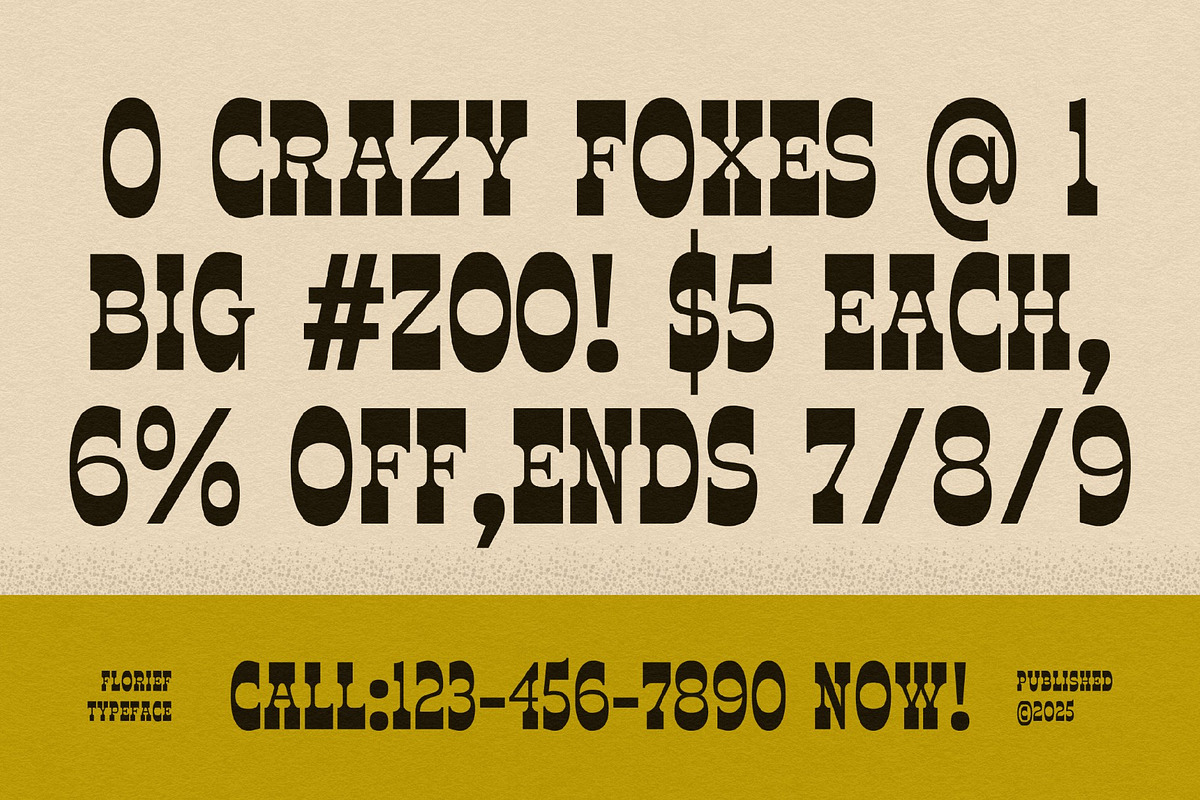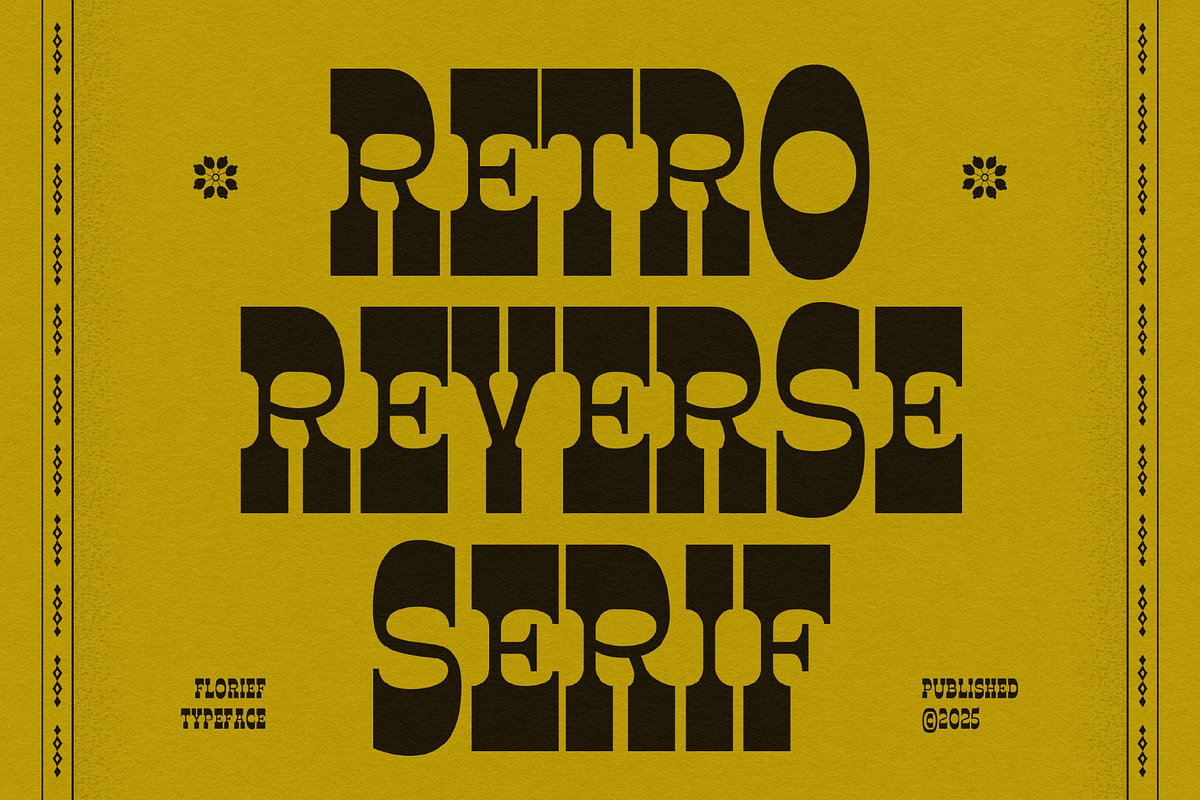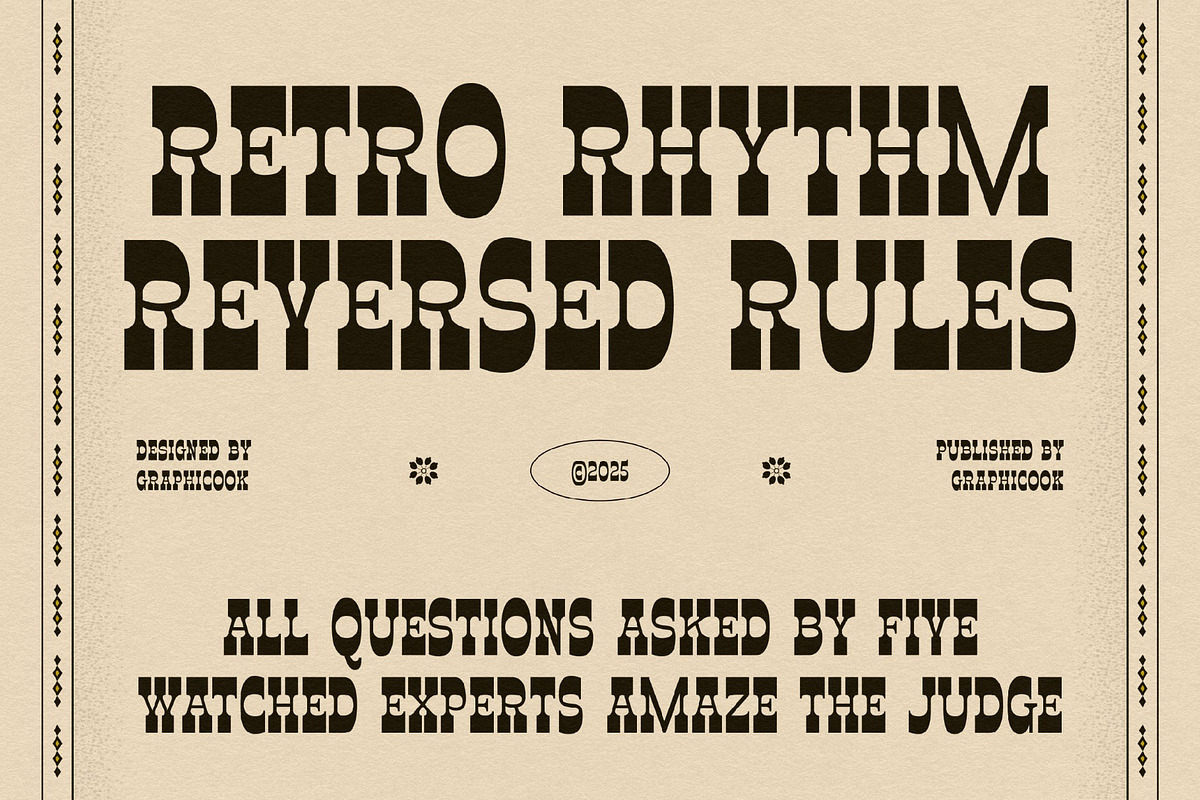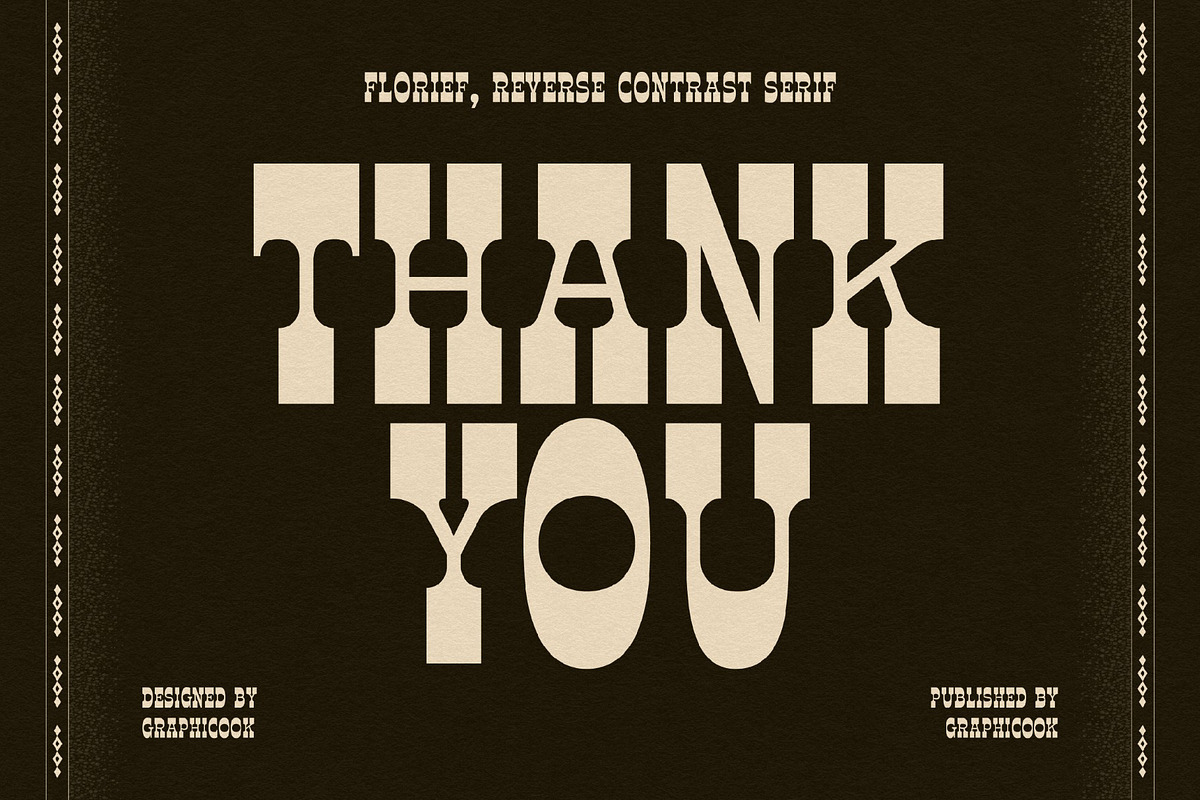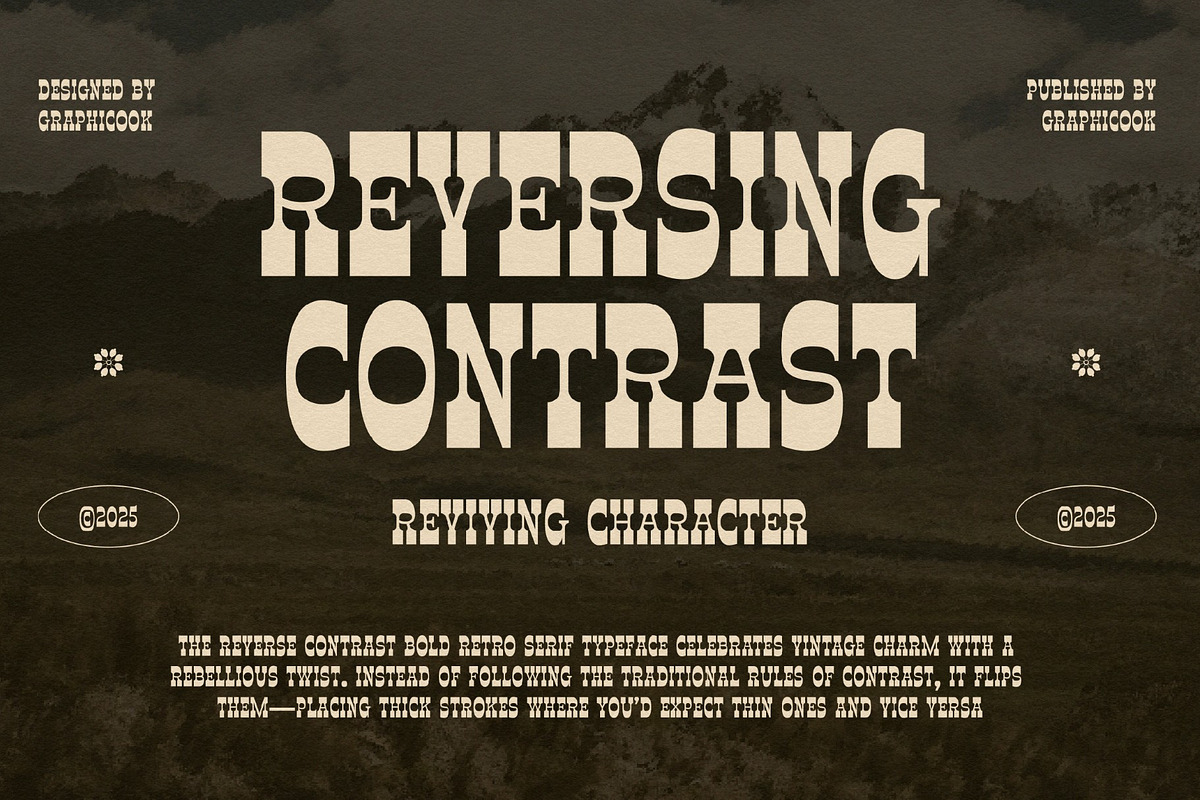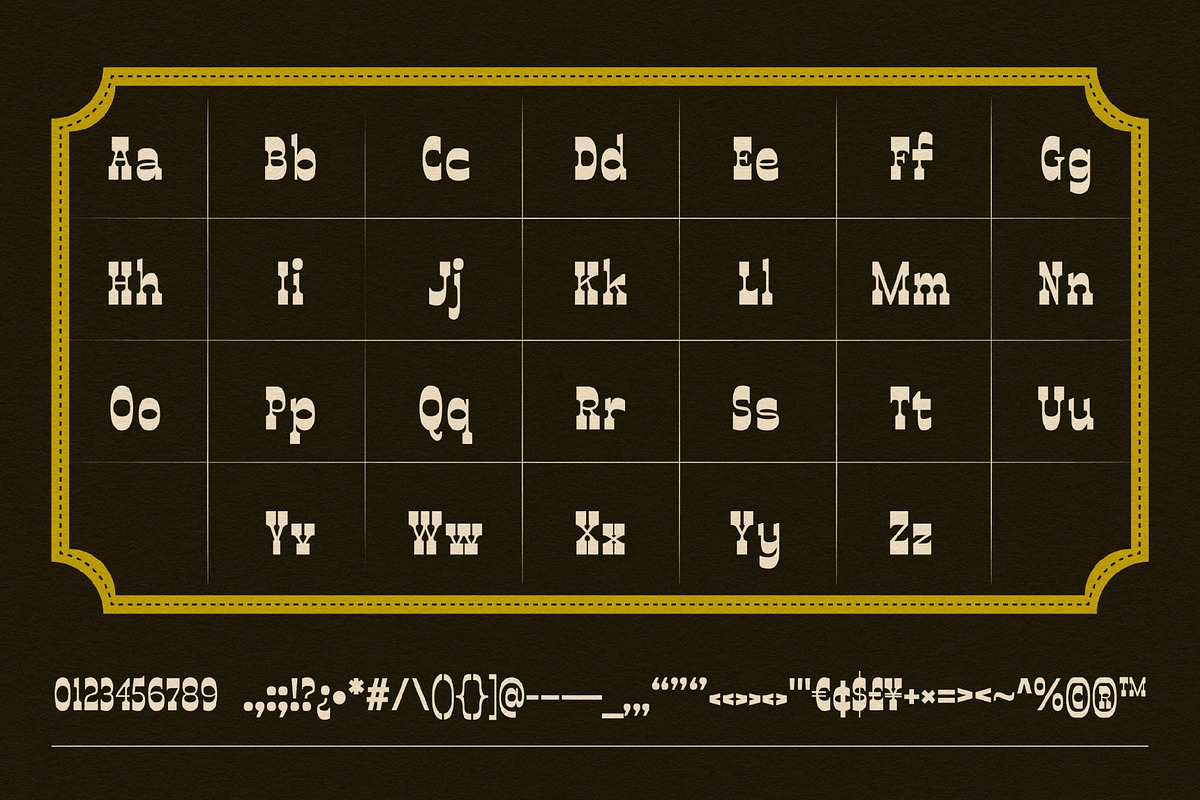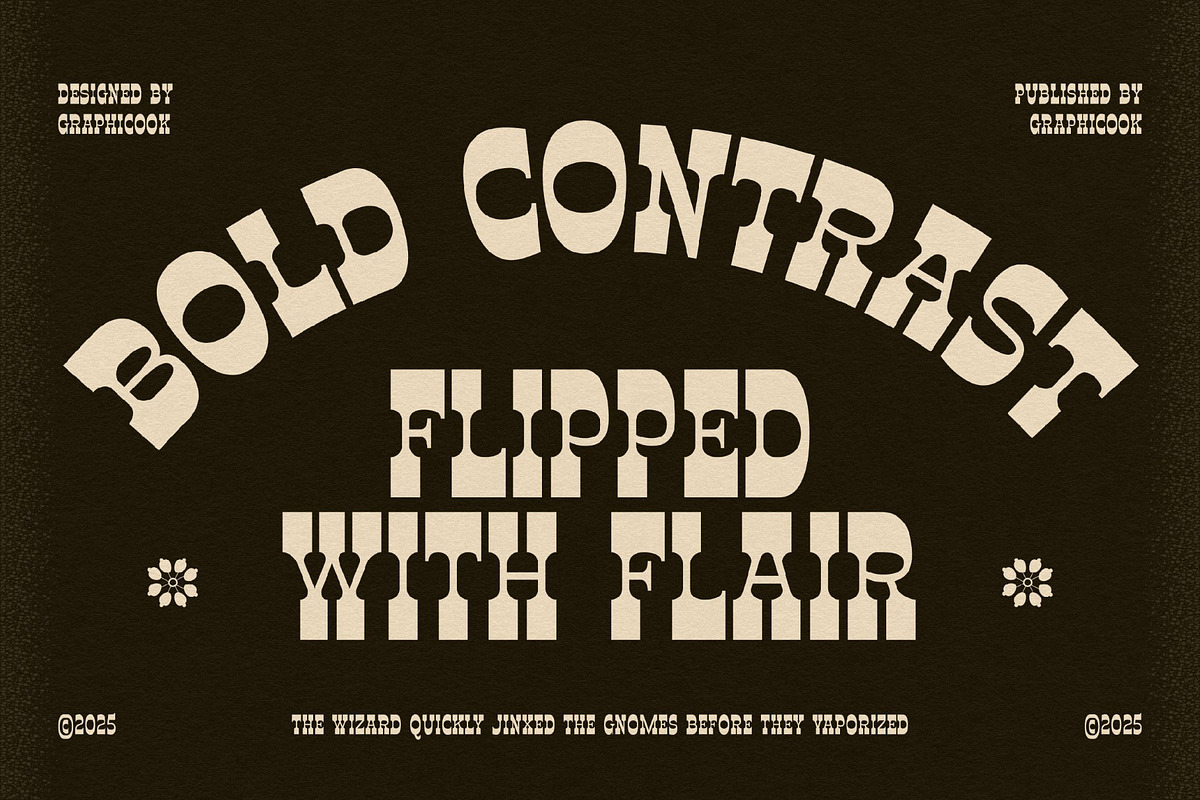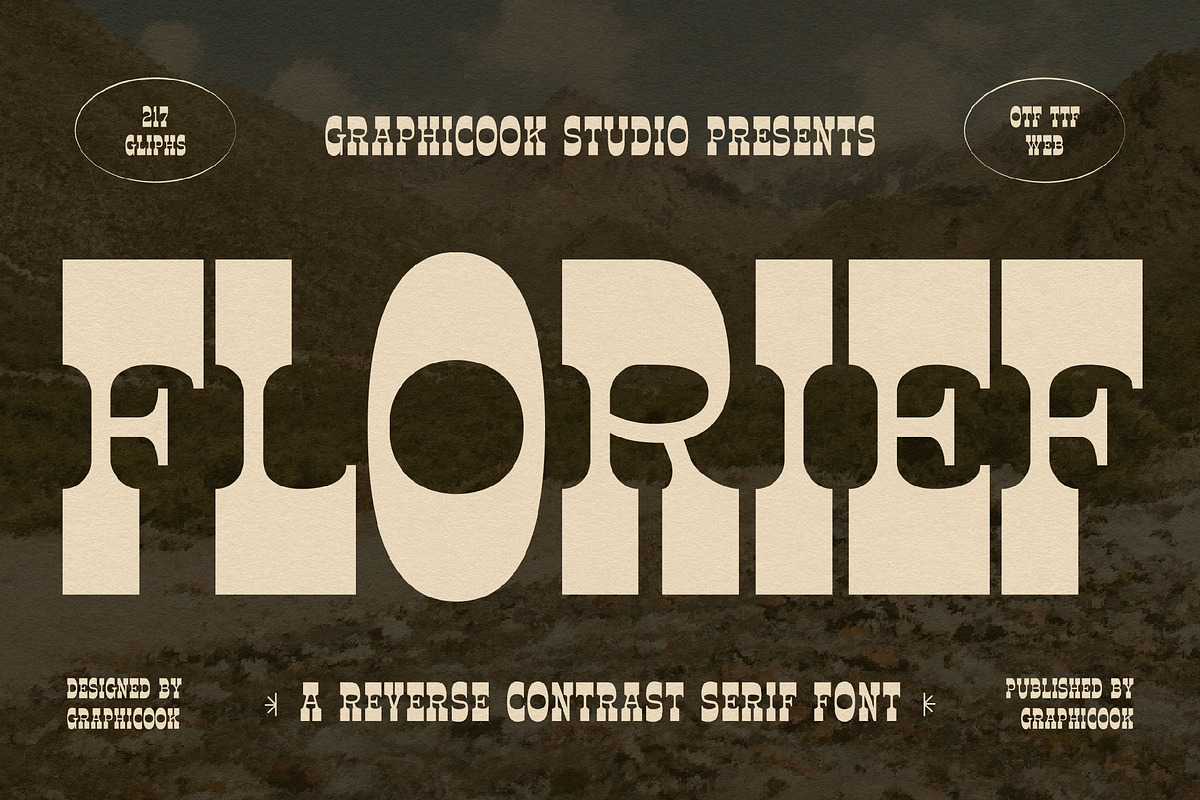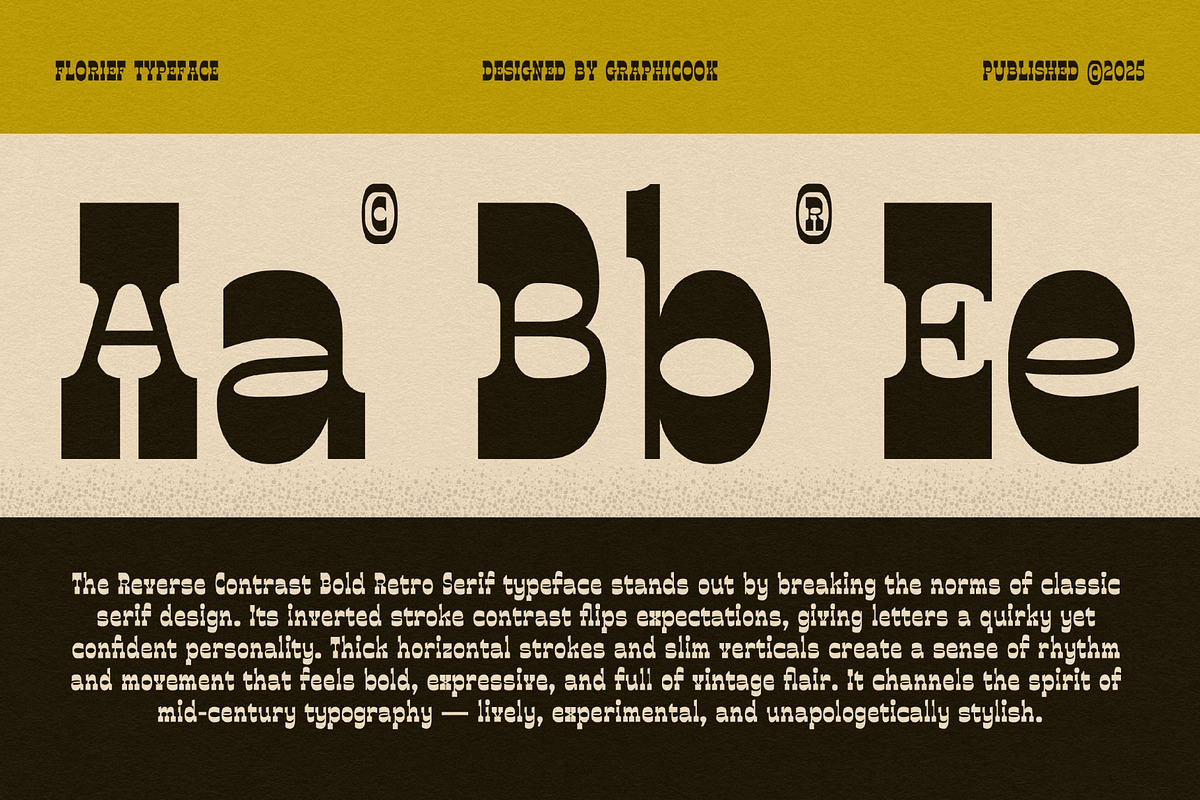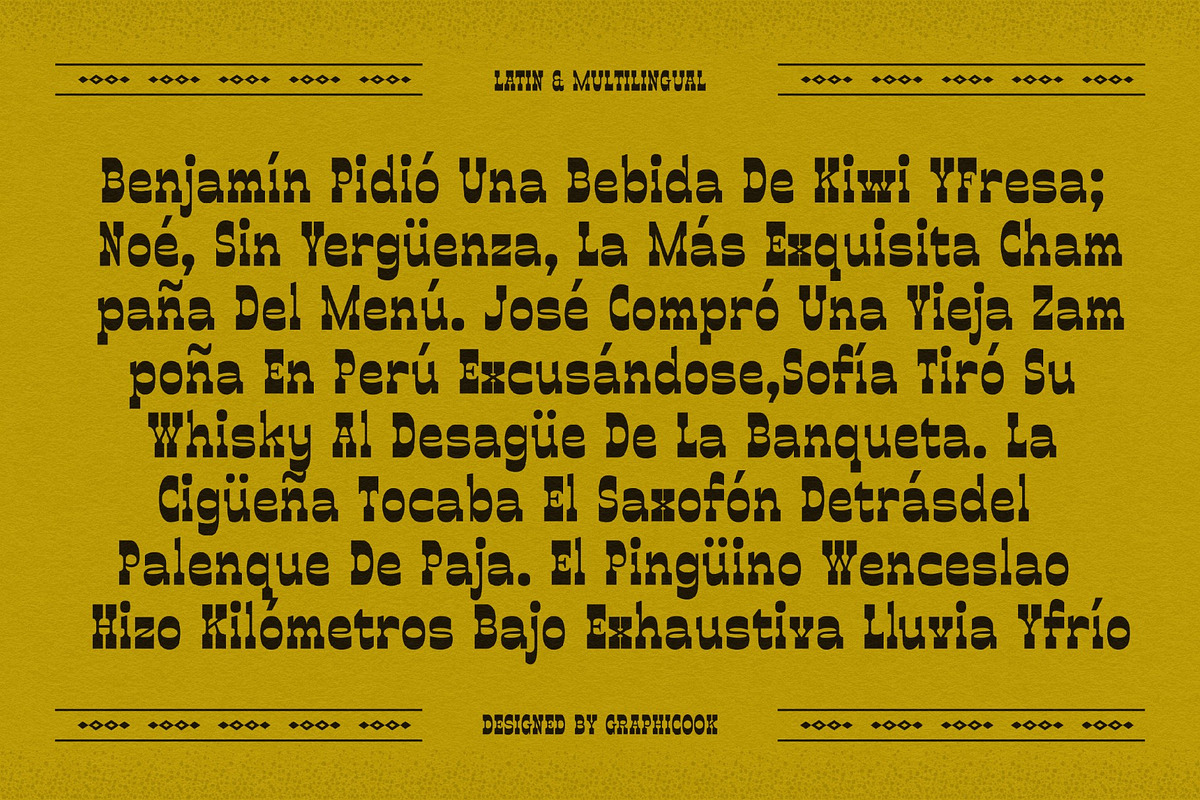
Florief
Florief is a reverse-contrast display font featuring bold, unconventional letterforms that feel expressive and unmistakably striking. Its edgy yet vintage-modern character makes it perfect for designs that aim to stand out with a bold, iconic typographic presence.
It is perfect for headlines, logotypes, magazines, packaging, quotes, movies, games, cover albums, book covers, and flyers, it's a perfect solution for creating eye-catching designs that stand out in any context.